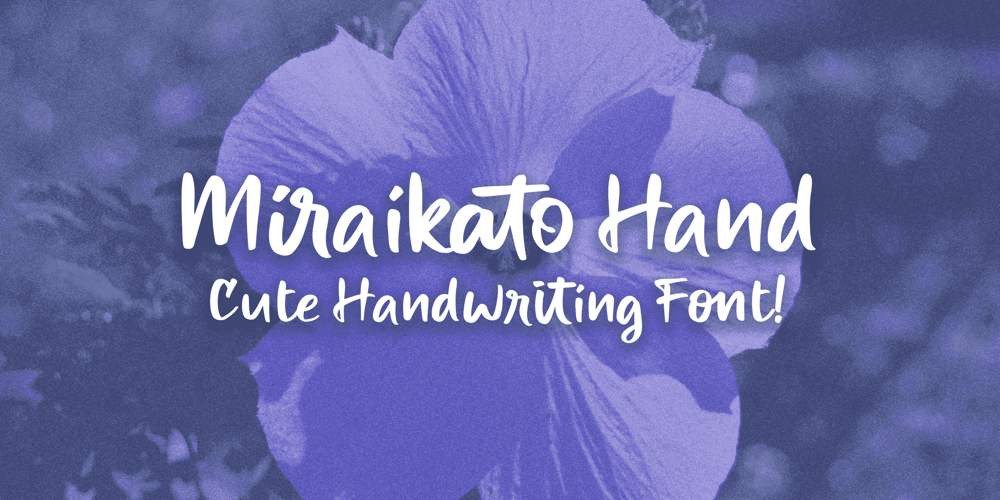
Miraikato Hand Font Family was designed by Måns Grebäck and published by Mans Greback. Miraikato Hand contains 6 styles and family package options. Miraikato Hand is a rustic handwriting typeface.As a cute brush writing, its naive and happy movements brings out the optimism and genuineness in any project. It is a charming handlettering, with a fun and humble personality.The Miraikato Hand family is provided in twelve styles:The weights Thin, Regular and Bold, plus each weight as Italic. The font is built with advanced OpenType functionality and has a guaranteed top-notch quality, containing stylistic and contextual alternates, ligatures and more features; all to give you full control and customizability. It has extensive lingual support, covering all Latin-based languages, from North Europe to South Africa, from America to South-East Asia. It contains all characters and symbols you’ll ever need, including all punctuation and numbers.